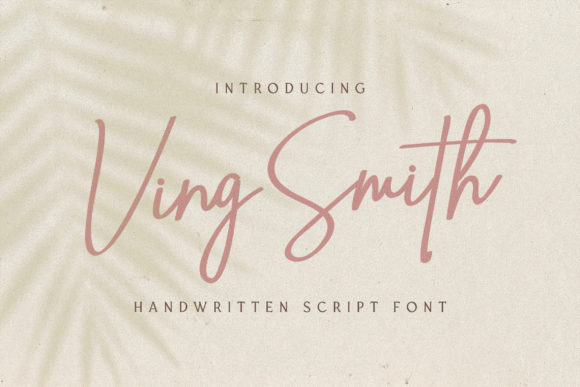
Unleash the power of prose with Ving Smith Font, a masterpiece from StringLabs. This exquisite script beckons you to take your designs to new heights. Experience the fusion of classic elegance and modern flair as Ving Smith dances across your pages.
Picture yourself invoking emotions with each word, captivating your audience with the charm of handwritten beauty. Immerse yourself in a world where words flow effortlessly, conveying messages with grace and sophistication. Ving Smith's delicate strokes and playful curves add a touch of magic to your projects, breathing life into every letter and phrase.
With its modern twist on classic calligraphy, Ving Smith sets your creations apart. Whether you're crafting heartfelt letters, designing stunning logos, or composing captivating social media posts, this font will elevate your work to new levels. Its versatility and effortless flow make it the perfect choice for a wide range of projects.
Don't settle for ordinary, let Ving Smith be your secret weapon to capture hearts and minds. Its unique character will add a touch of enchantment to your designs, leaving a lasting impression that lingers in the memory. Immerse yourself in the allure of this enchanting font and unlock the true potential of your creative endeavors.
Indulge in the artistry of Ving Smith Font and elevate your projects beyond the ordinary. Embrace the fusion of timeless elegance and contemporary charm, and let your words dance with grace and allure. Ving Smith awaits your command, ready to transform your creations into works of art. Unleash the magic within and redefine your design aesthetic with this breathtaking script.